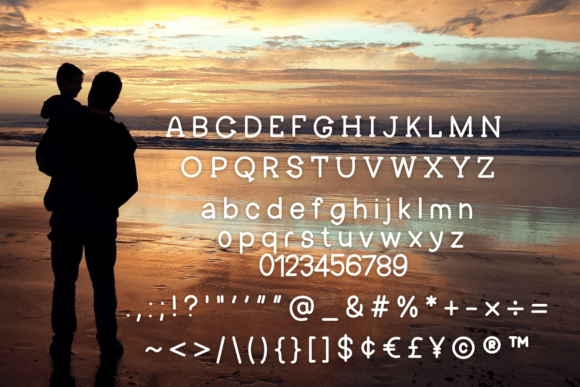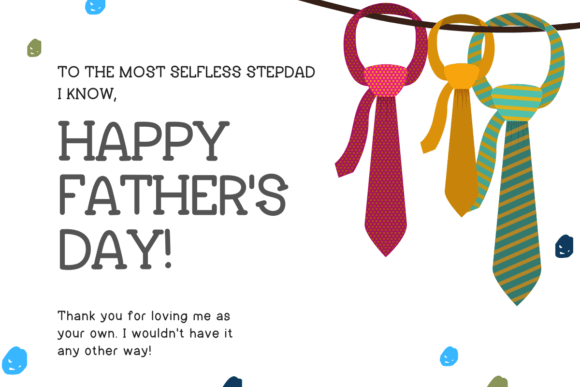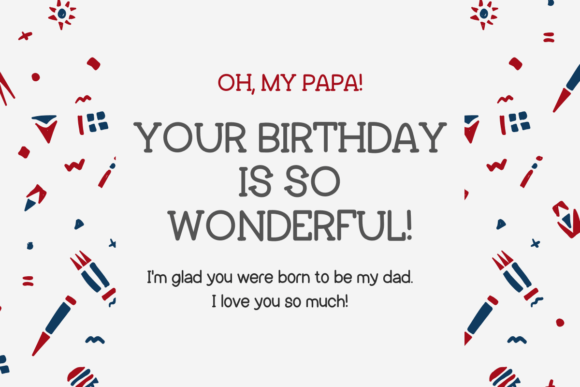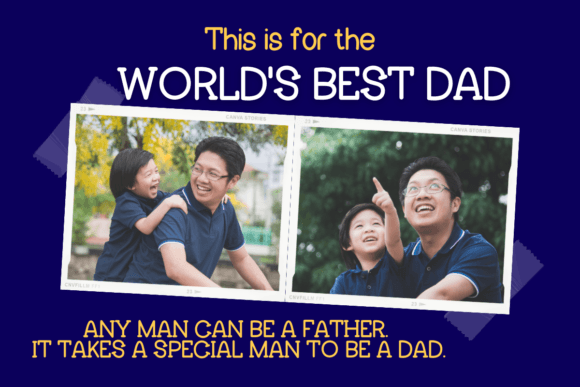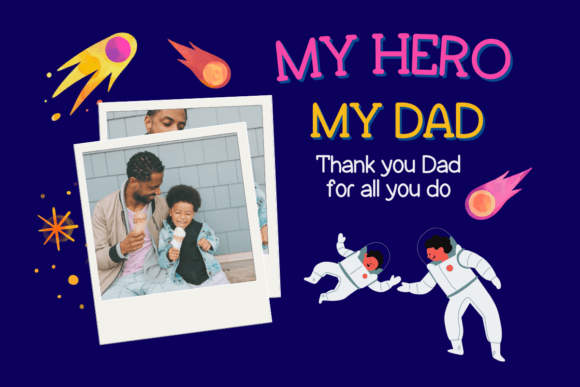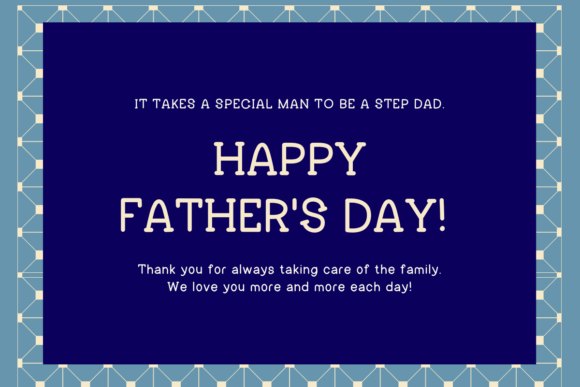
Introduction to My Dad Font
Have you ever been scribbling away in a notebook, trying to get your creative juices flowing, when you stumble upon a handwritten font that makes your notes look like they were written by a loved one? That’s exactly what happens when you use the My Dad Font – a beautifully crafted, high-quality handwritten font that’s perfect for any creative project.
Whether you’re a designer, a student, or simply someone who loves to express themselves through writing, My Dad Font is a valuable resource that’s sure to bring a touch of personality to your work. With its transparent background and endless possibilities for use, you can create anything from greeting cards and social media posts to banners and stationery.
Key Features of My Dad Font
- High-quality font design for personal and commercial use, perfect for a creative project.
- Transparent background for easy layering and customization in your design.
- My Dad Font is available in a single size (32px) and resolution (72 dpi), ideal for digital designs.
- Unique, handcrafted design with a personal touch, making it perfect for a family business or personal brand.
- My Dad Font is a versatile design resource suitable for a variety of creative projects, from logos to signage.
Honest Review: My Dad Font
I recently stumbled upon the My Dad Font, a free download that’s been making waves in the design community. As a designer, I was excited to give it a try and see if it lives up to the hype.
- ✨ High-quality design: The font is crisp, clean, and has a unique character that sets it apart from other free fonts.
- ✨ Versatile: The font is suitable for a wide range of creative projects, from print materials to digital designs.
- ✨ Transparent background: This is a major plus for designers who need to work with transparent backgrounds.
- ⚠️ Limited character set: The font only includes a limited set of characters, which may not be suitable for projects that require a wider range of characters.
- ⚠️ Not ideal for body text: While the font is great for headlines and titles, it may not be the best choice for body text due to its unique character and limited legibility.
Overall, I’m impressed with the My Dad Font. While it’s not perfect, it’s a great addition to any designer’s toolkit and can add a unique touch to a variety of creative projects. With a little creativity, it can be used to great effect in a wide range of design applications.
How to Use My Dad Font
Introduction to My Dad Font
My Dad Font is a free download high-quality design resource that can elevate your creative project to the next level. With its transparent background, this font is perfect for adding a personal touch to your designs.
Tips for Getting the Most Out of My Dad Font
Here are some tips for getting the most out of My Dad Font:
- Experiment with different font sizes and styles.
- Combine My Dad Font with other design elements for a unique look.
- Use the font to create a consistent brand identity.
Common Use Cases for My Dad Font
My Dad Font is perfect for:
- Creative projects, such as posters, flyers, and social media graphics.
- Branding and marketing materials, such as business cards and logos.
Q: Is My Dad Font suitable for use in digital applications?
Yes, My Dad Font is suitable for use in digital applications, including websites, mobile apps, and video games. The font is designed to be highly legible and scalable, making it perfect for use in digital environments. We’ve also optimized the font for use on high-resolution displays, so you can be sure it will look great on any screen.